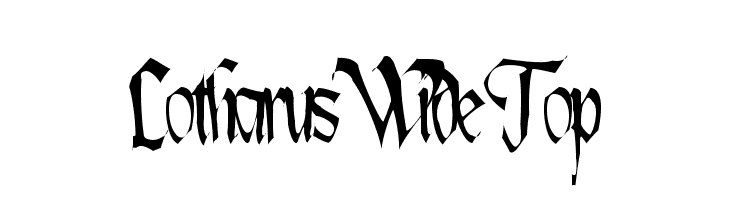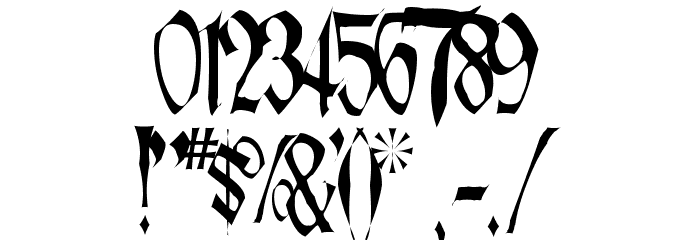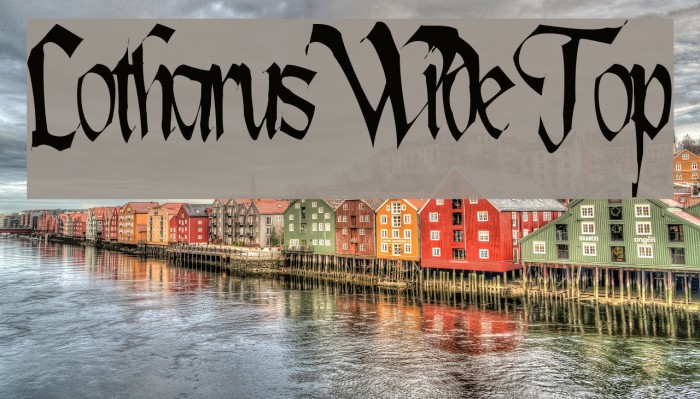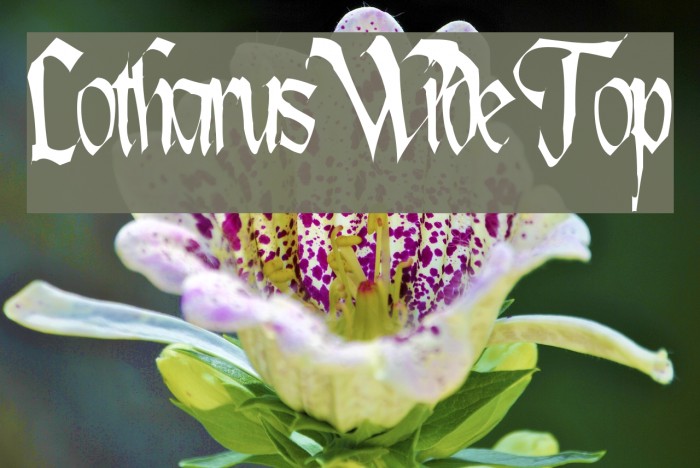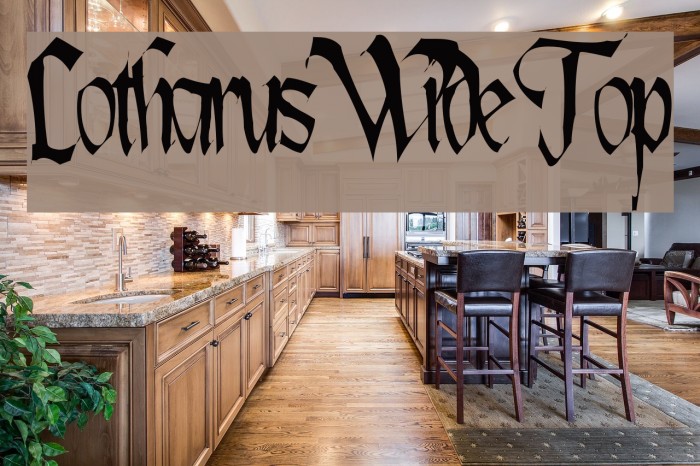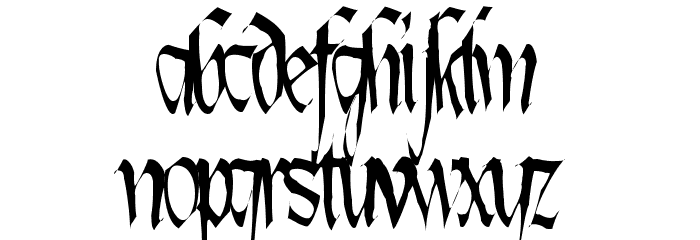
Lotharus Wide Top Font
| 幅 | Expanded |
| おすすめプロジェクト | Ideal for posters, album covers, book titles, and any design needing a dramatic, historical touch. |